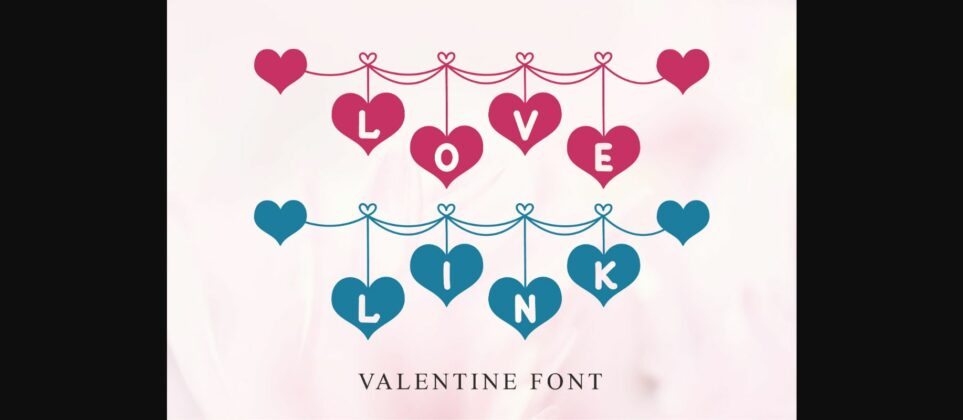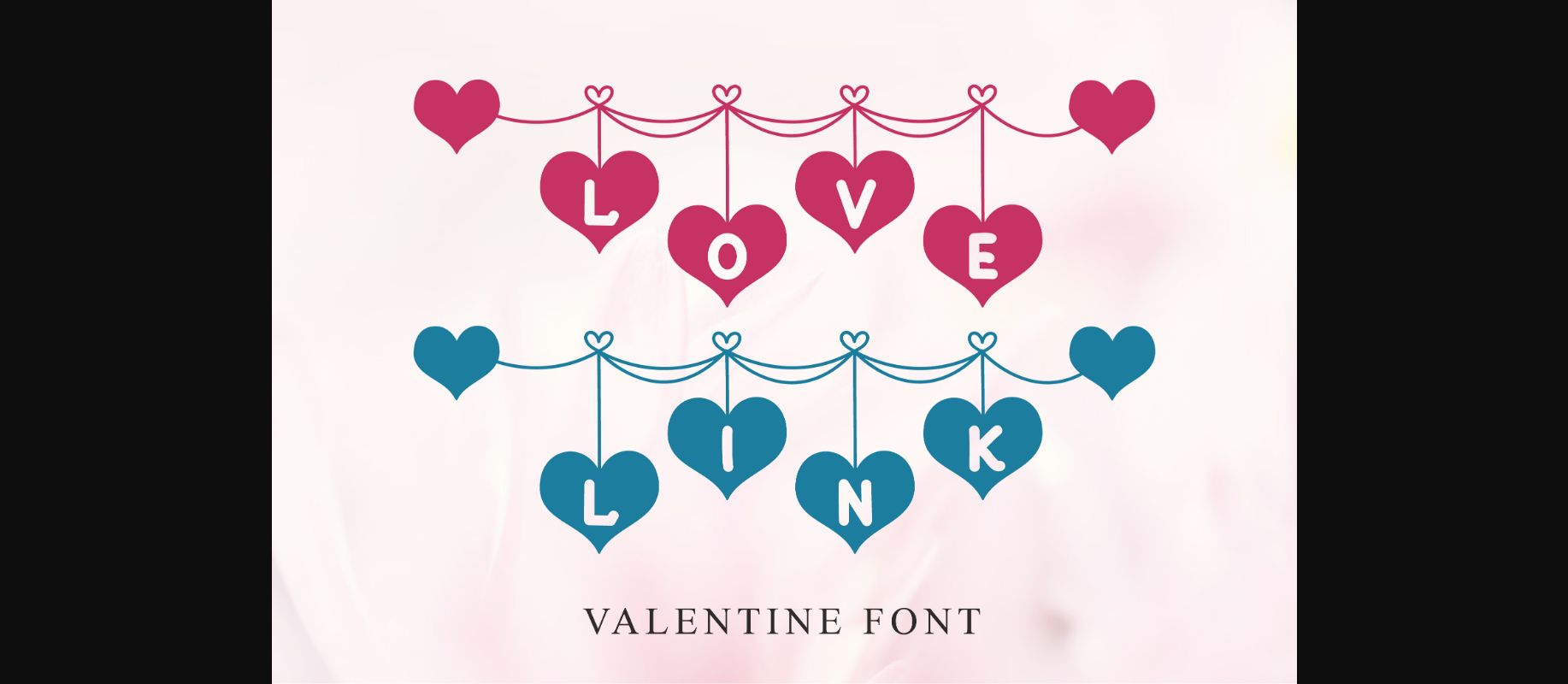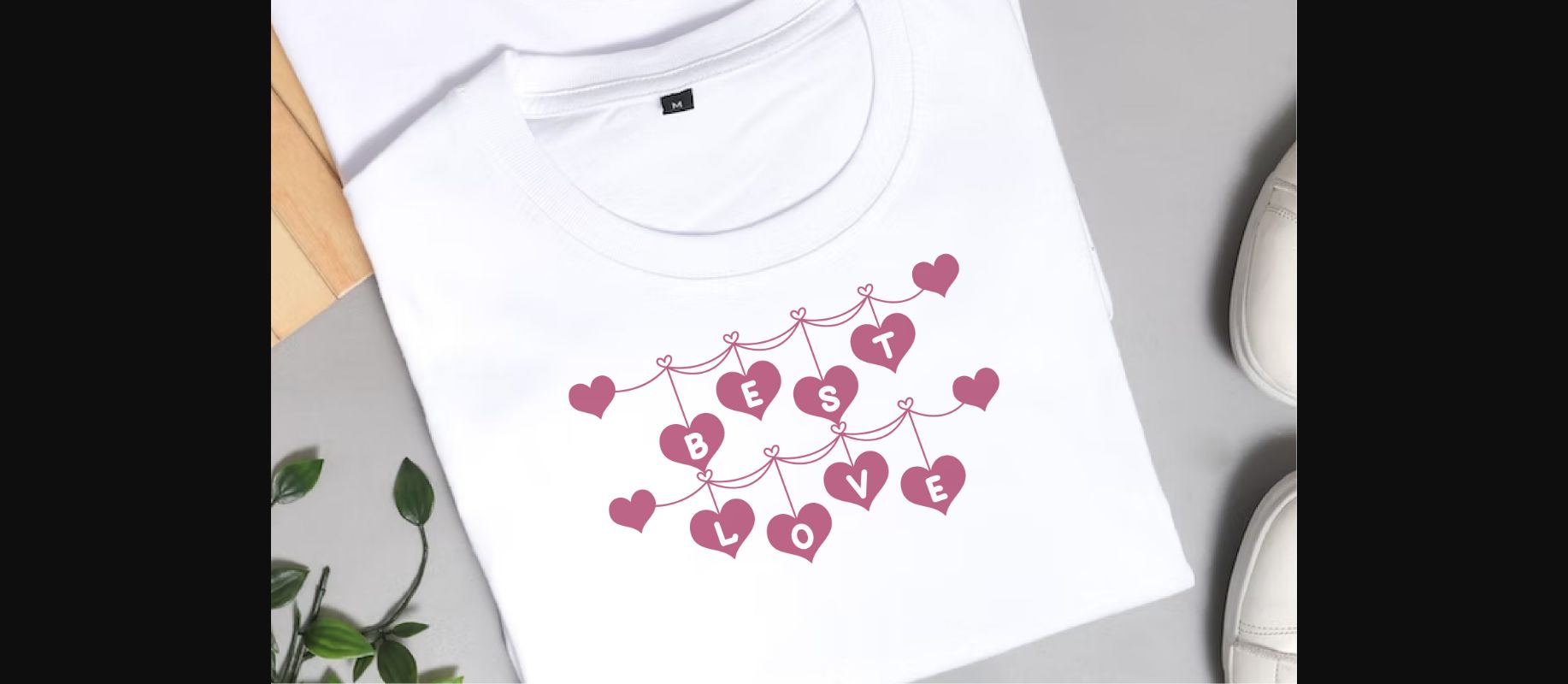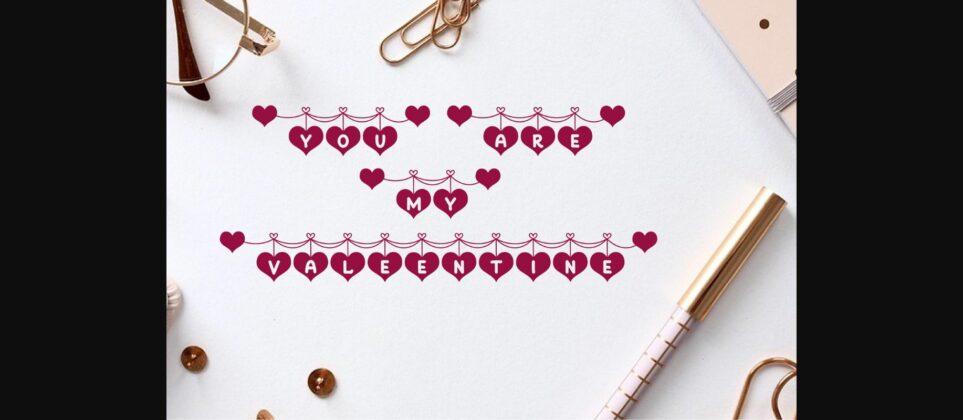
About Love Link Font
Love Link is a cute and fun Valentine’s edition font. Which is very suitable to complement your various design needs. It’s great for logotypes, wedding invitations, romantic cards, labels, packaging, the spelling of names, and others. Add to your most creative ideas and watch how they bring them to life!